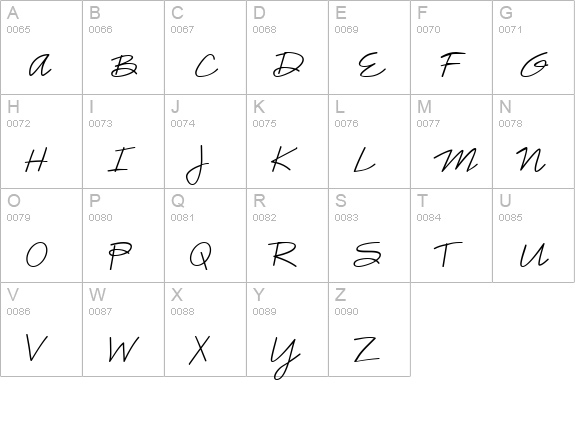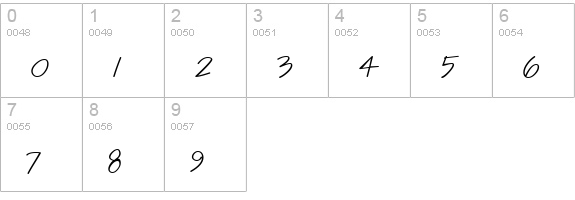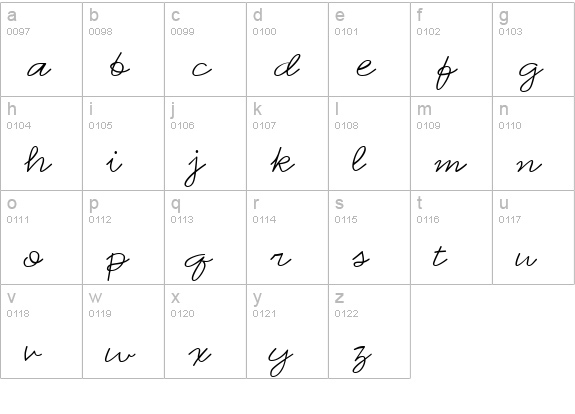
CK Script Font Details
Introducing CK Script font, a beautifully crafted typeface that exudes elegance and sophistication. With its flowing curves and intricate details, CK Script is perfect for adding a touch of charm to any project. Whether you're designing wedding invitations, branding materials, or social media graphics, this font will elevate your work to new heights. The best part? CK Script is completely free to download at FontsMarket.com. Yes, you read that right - you can enjoy the beauty and versatility of this font at no cost. So why wait? Head over to FontsMarket.com and enhance your designs with CK Script today!